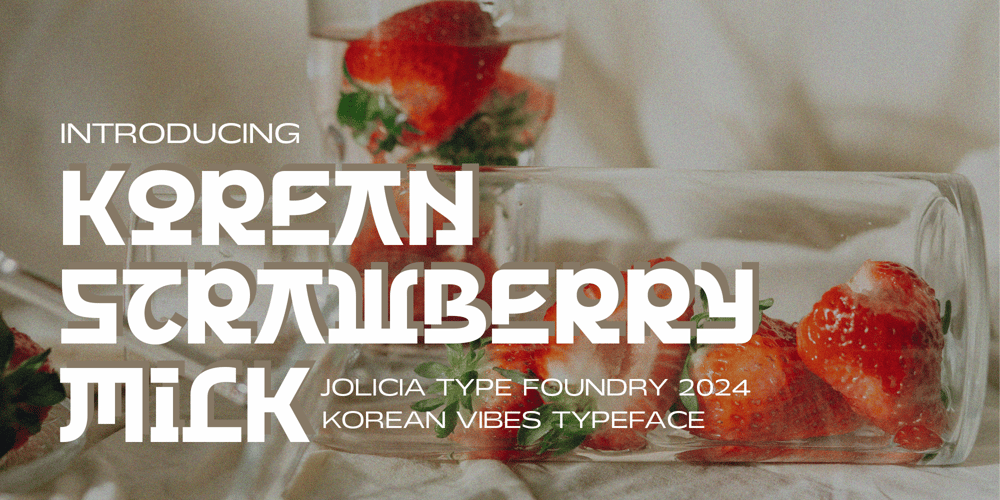
Korean Strawberry Milk Font Family was designed by Laire Banyu, Dyaharum Pungki Revitasari and published by Jolicia Type. Korean Strawberry Milk contains 1 styles and family package options. Discover the charm of “Korean Strawberry Milk,” a delightful Korean style font that brings a touch of sweetness and elegance to your designs. Inspired by the graceful strokes of traditional Korean calligraphy, “Korean Strawberry Milk” adds a unique cultural flair to your text. Discover the charm of “Korean Strawberry Milk,” a delightful Korean style font that brings a touch of sweetness and elegance to your designs.